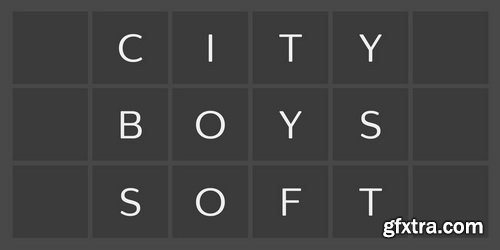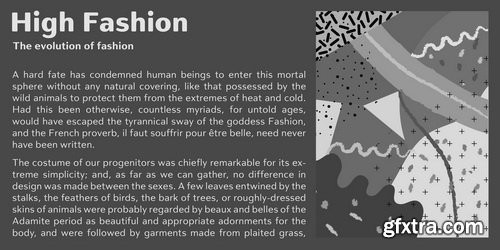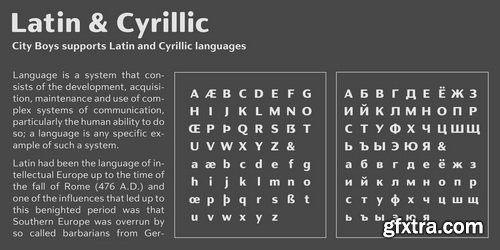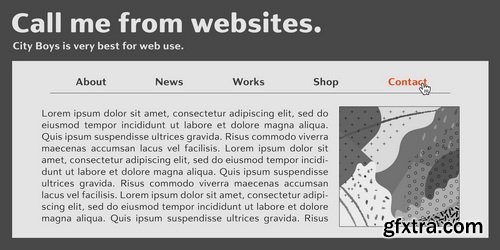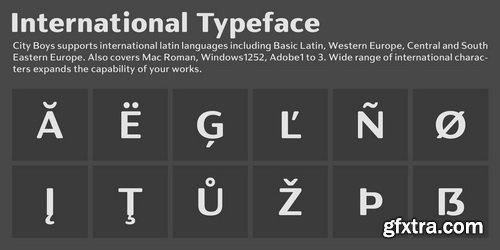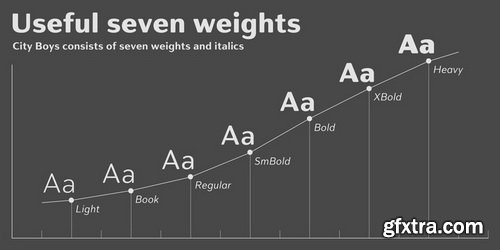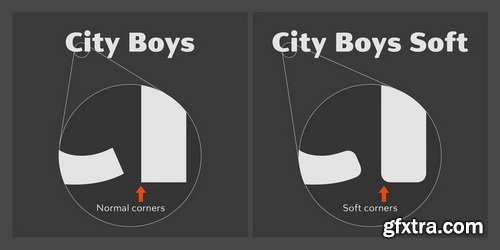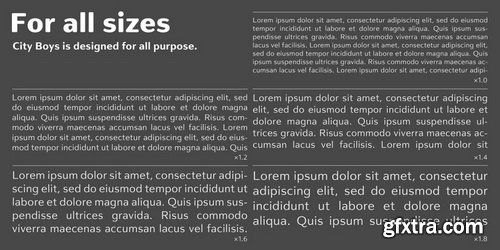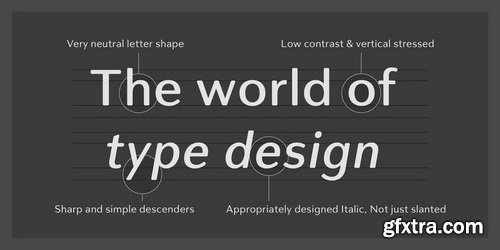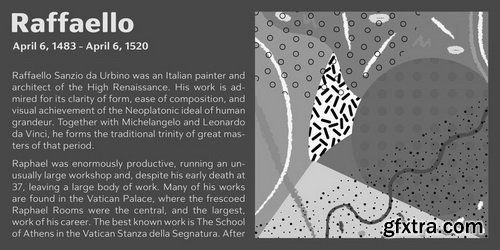
City Boys Soft is a fashionable contrasted sans-serif that can be used in almost any situation.City Boys has basic, natural and neutral letterforms and skeletons for a wide range of usage.The glyphs are somewhat humanist yet they have vertical stress for modern and sophisticated impression.The ratio of the contrast was carefully designed for modern usage –websites, digital, printings and merchandises–.City Boys consists of 7 weights and their matching Italics for a wide range of usages.